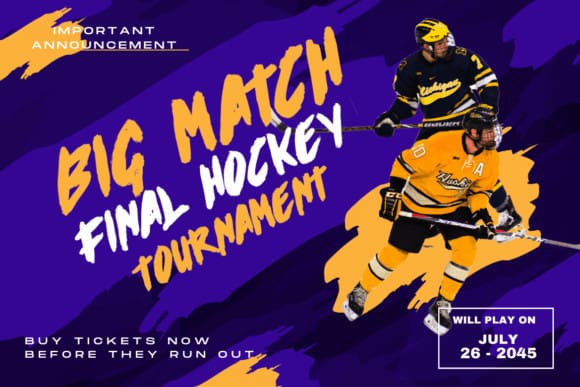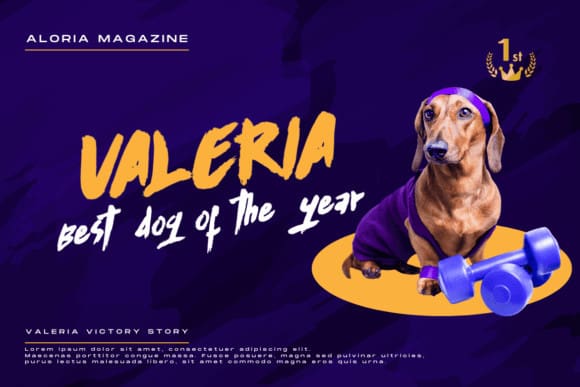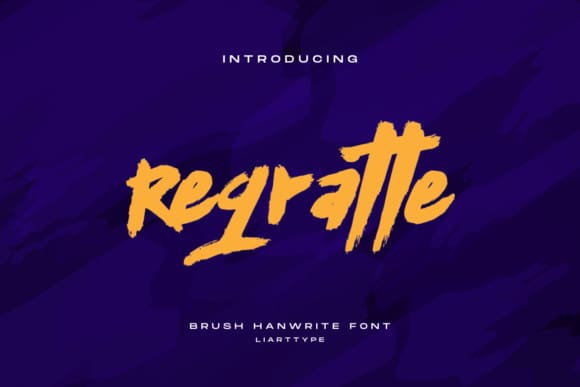
Regratte Brush Font
Regratte Brush Font is a handwritten brush script font that looks and feels like it was written on a marker board. Perfect for greeting cards, invitations, and motivational quotes, this font should help you express all of your best messages!